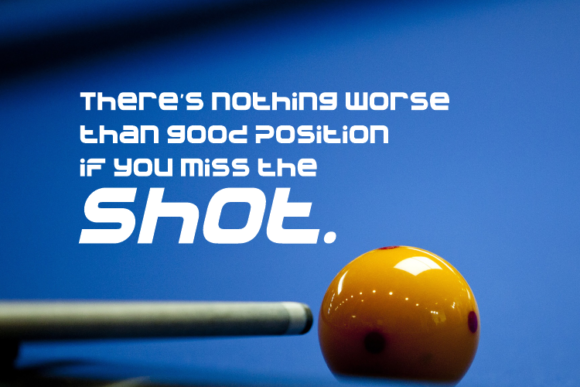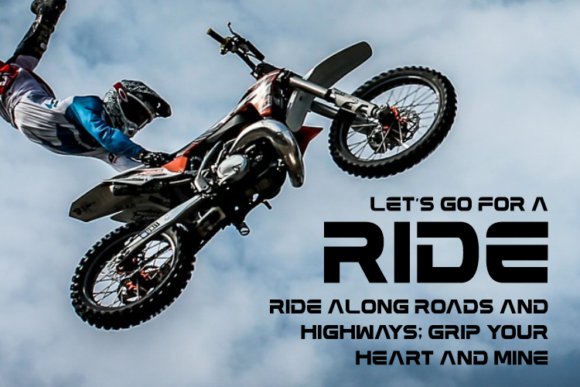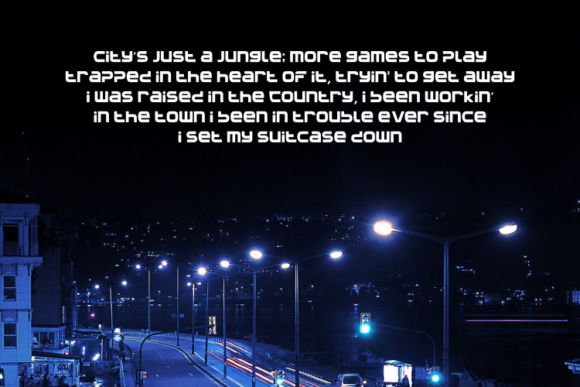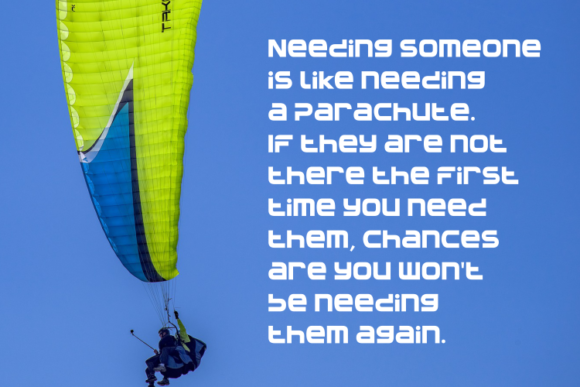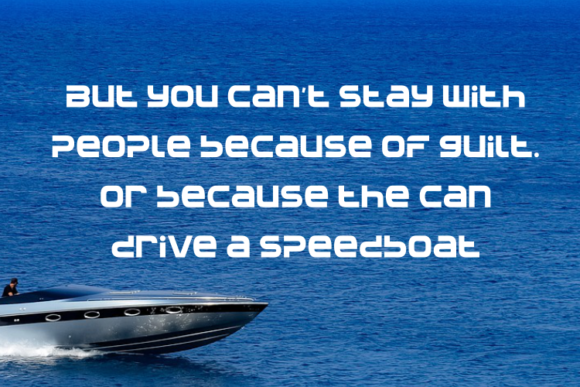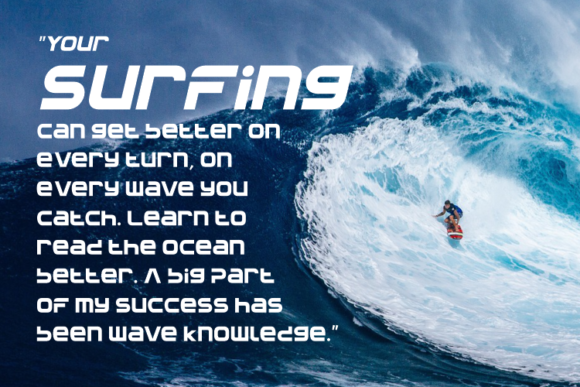
The Quest for the Perfect Font: Discovering Atary
I still remember the design project that led me to Atary. I was working on a futuristic web design for a tech startup, and I was struggling to find the right font. The client wanted something bold, modern, and eye-catching, but everything I tried seemed to fall flat. That’s when I stumbled upon Atary, a cool, bold, and modern display font that instantly caught my attention.
Atary is ideal for writing web designs, business cards, or pretty much anything else that requires a futuristic touch. In this article, I’ll share my experience with Atary, including what I love about it, its limitations, and how to use it on different platforms.
An Honest Review of Atary
What I Love About Atary ✨
• 💥 **Bold and modern design**: Atary has a sleek, futuristic look that’s perfect for making a statement.
• ✅ **Highly versatile**: This font can be used for a wide range of design projects, from web designs to print materials.
• 🎨 **OpenType features**: Atary supports OpenType features, including glyphs and stylistic alternates, which give you more creative control.
• 👍 **Easy to read**: Despite its bold design, Atary is surprisingly easy to read, even at smaller font sizes.
• ⚠️ **Limited use in body text**: Atary is a display font, so it’s not suitable for long blocks of body text.
• 🤔 **Some characters may not work well in all contexts**: As with any font, some characters may not work well in all design contexts, so it’s essential to test and adjust as needed.
The Backstory of Atary
Atary was designed by a team of typographers who wanted to create a font that would capture the essence of modern technology. Inspired by the sleek lines and futuristic designs of sci-fi movies, the team created a font that’s both bold and elegant. Today, Atary is used by designers and crafters around the world to add a touch of futurism to their designs.
Q: What is Atary font?
A: Atary is a cool, bold, and modern display font designed for use in a wide range of design projects, from web designs to print materials.